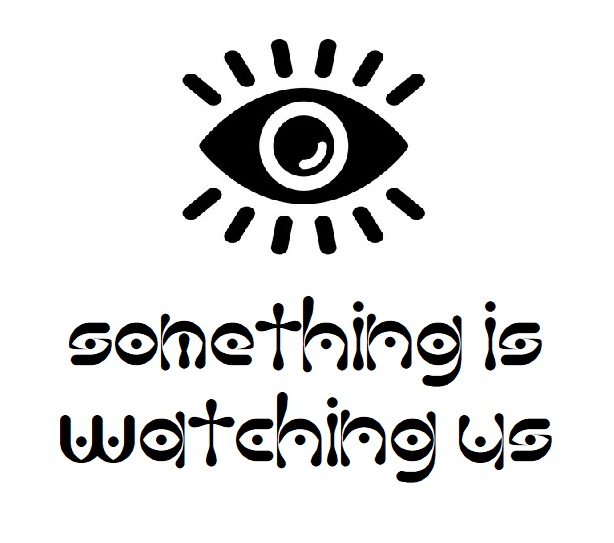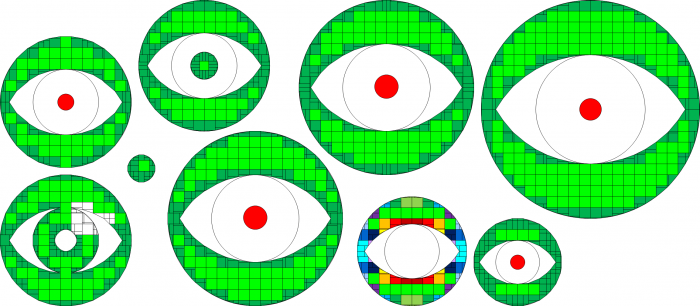
Stunning idea, very well crafted and fontstructed. I also worked in something similar, but with a half pupilla (zyklopedia). Waiting for the rest.
Very cool. :)
Perhaps v and w could be altered so the stems have the thin-thick thing happening in it too.
Very effective. Would a rounded terminal on r work better?
A fascinating new display font with elements that look like eyeballs. Apart from the sensory organ is your font name a reference to the British parliament lingo: the ayes have it? Nice and smooth curves, and rounded shapes that look so natural and effortless. It takes, however, skill and painstaking work with custom bricks to achieve this even finish. Great work. 10/10
Studies for the Eyes Have It font:
I picked the one on the lower left.
Looks like the CBS Logo
I agree, WeDoFonts.
CBS
cbs